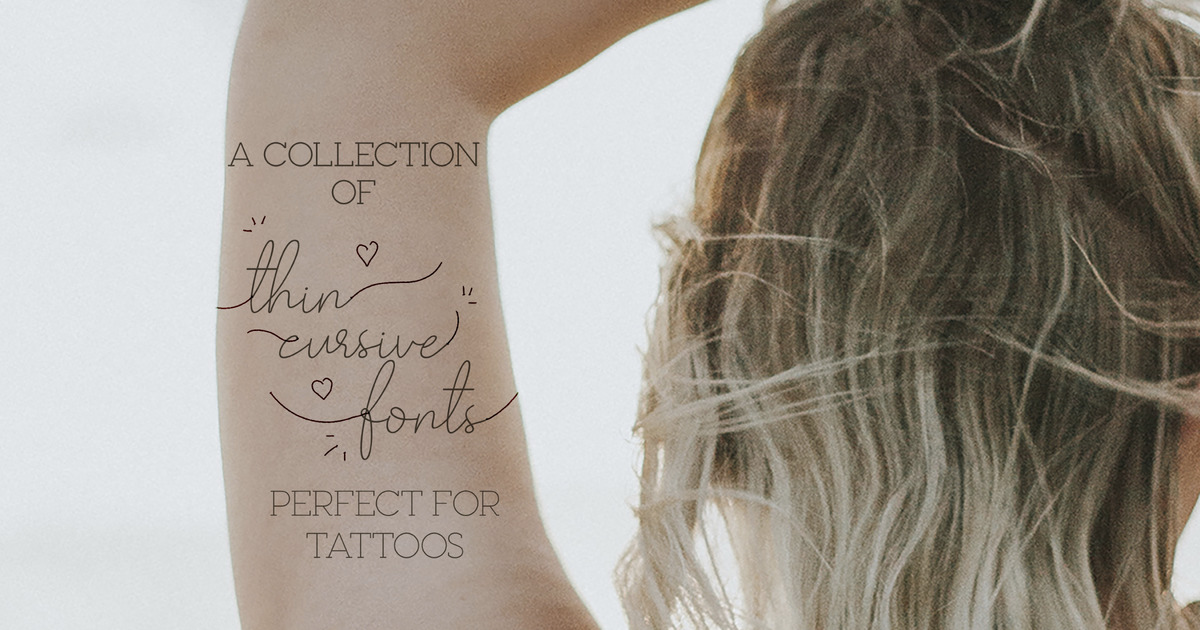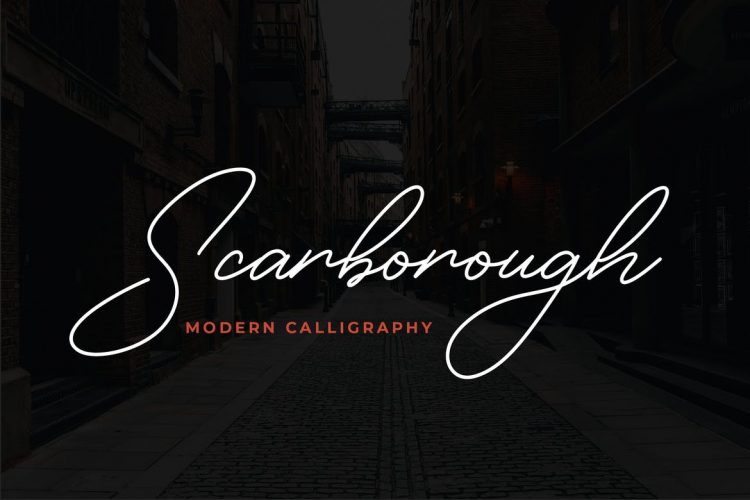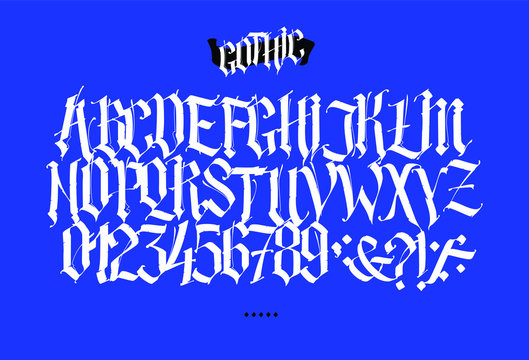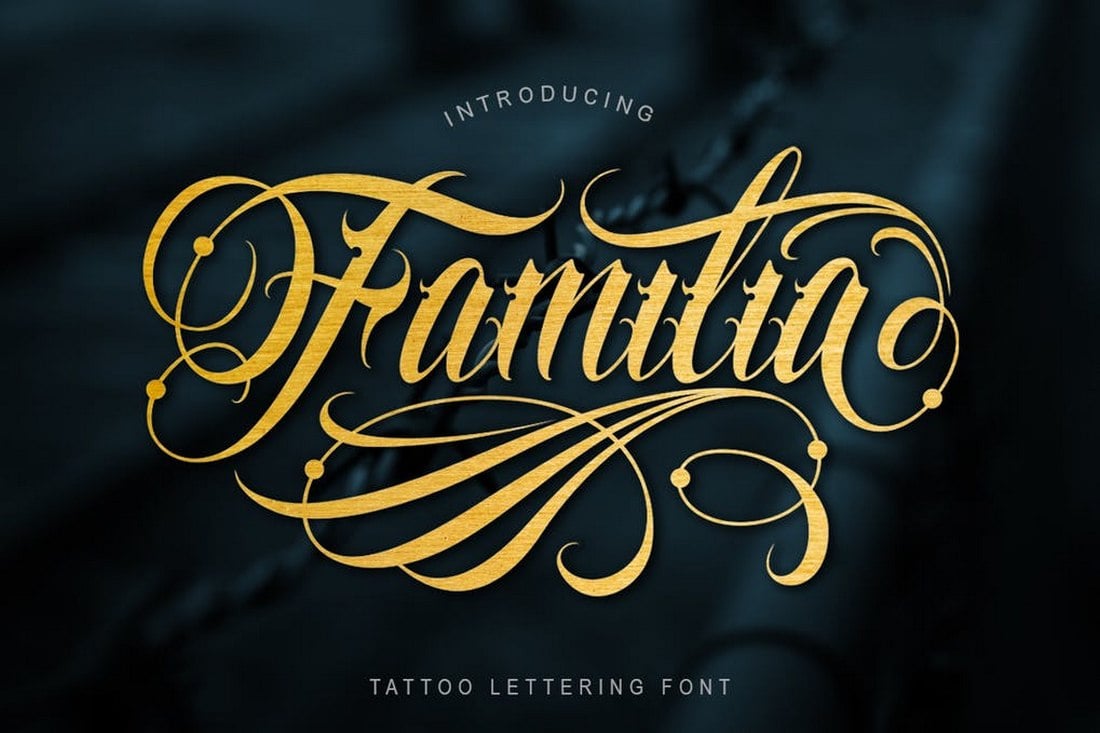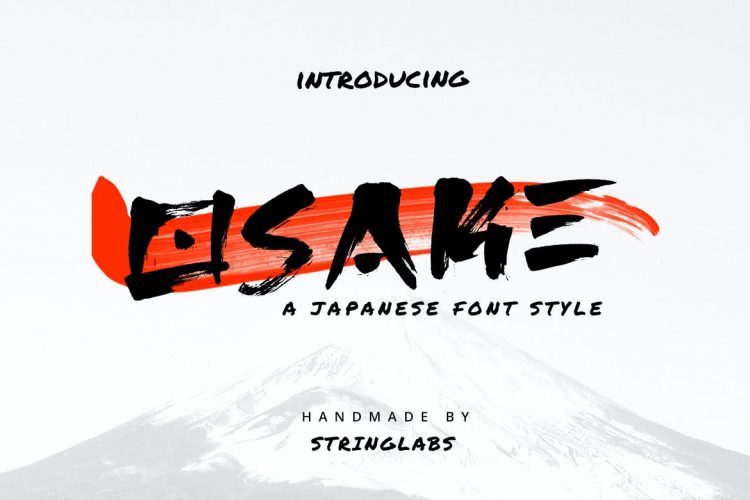
One font we like is Tattoo Girl designed by Otto Maurer as shown in the image below.
Our free tattoo font creator online gives you an inside look at what real tattoo fonts look like in blown up size. Cursive tattoo fonts which are custom designed by the many tattoo artists across the globe require a lot of artistic talent and personal creativity. These styles are relatively ancient and are gaining in popularity at a very rapid pace owing to the exquisite look that they project.
Words of wisdom quotes custom text and more can be included with your tattoo in. Its always very suitable for making logos lettering designs writing headlines and carrying out anything in a gothic or vintage style. Looking for Tattoo Lettering fonts.
Create tribal tattoo lettering old english tattoo lettering chinese tattoo lettering gangster. Other popular fonts used in tattoos include. The font features a design inspired by the signs and posters from the 1890-1910s.
Lettering styles include tribal traditional sailor blackletter fancy cursive script etc. Fortunately we have many unique tattoo font styles for men and women such as calligraphy cursive and traditional styles. Font sets can come with all these features and more.
Tattoo Lettering Styles Chicano Lettering Tattoo Script. De Arloy is a vintage art nouveau font that also has a tattoo style elements in its design. Little Lord Font Leroy -.
Old English fonts are also used a lot in tattoo designs because they have a distinguished look and evoke some medieval atmosphere. Rose thorns wrapping around each letter is a good example. Ropstone Free Tattoo Blackletter Font.
Simply put nothing says FEMALE more than a beautifully designed cursive font.